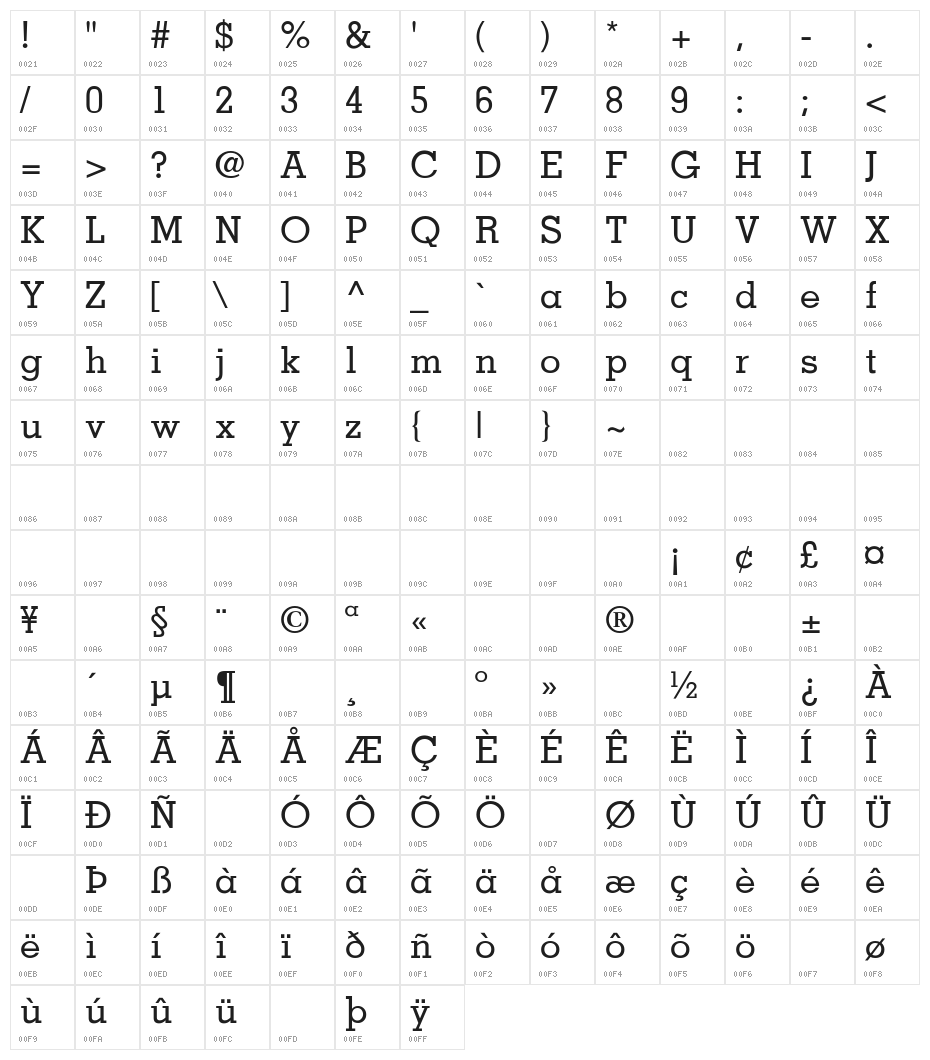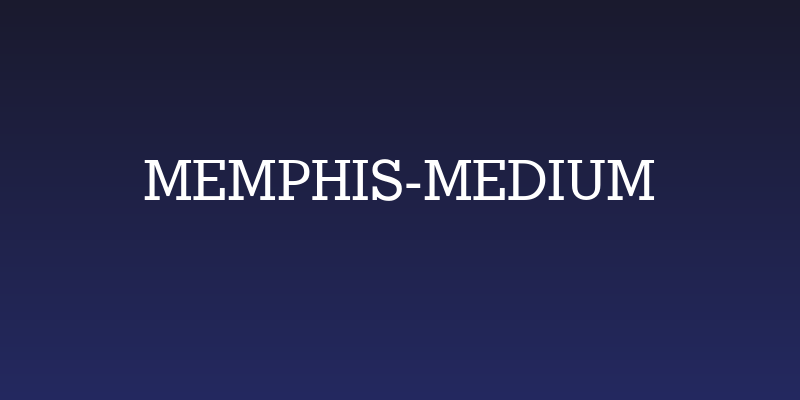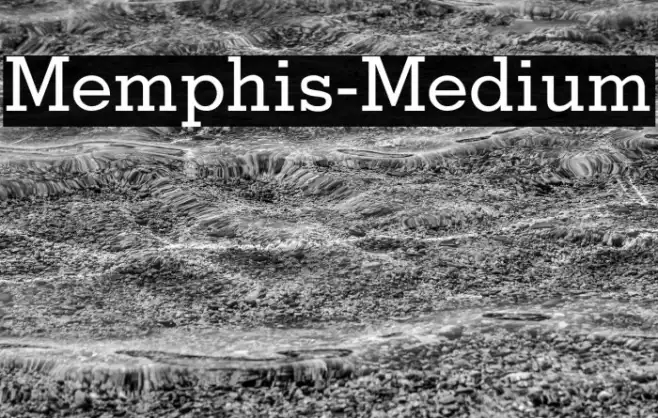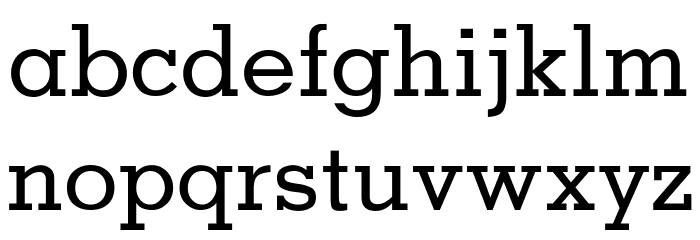
Memphis-Medium Font
Memphis-Medium Description
This font features a robust and geometric slab serif design, characterized by its strong, rectangular serifs and uniform stroke widths. The uppercase letters are bold and commanding, with a consistent height that creates a harmonious appearance. The lowercase letters maintain a similar weight, offering a balanced and cohesive look across both cases. The numerals are clear and legible, with a slightly modern twist that complements the overall style. Special characters are well-defined, ensuring versatility in various design contexts. This font's structured and solid appearance makes it suitable for projects requiring a strong visual impact.
| Proposed Projects | Ideal for branding, headlines, posters, and editorial design where a bold statement is needed. |